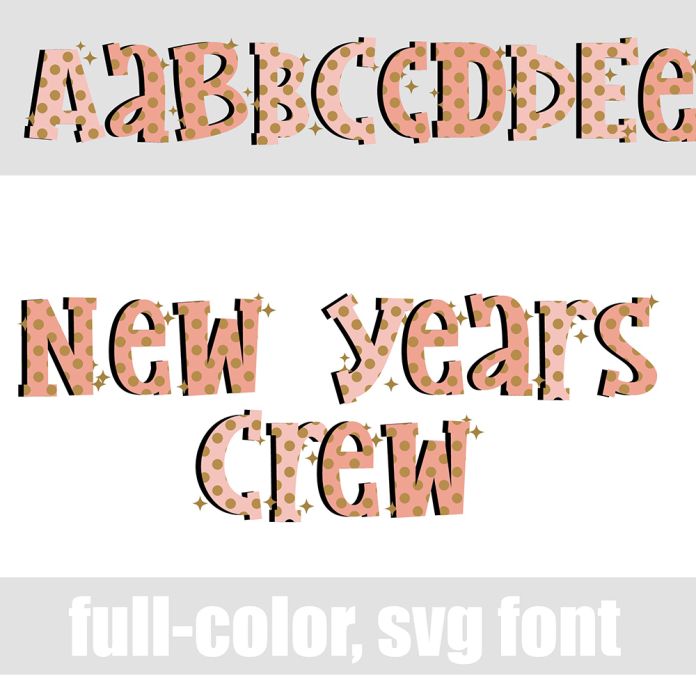
This full-color font features a polka dot font with sparkles throughout. There is an alt case with an additional color of each letter. This font works best for titles, displays, posters and more. Please note color fonts will show as black in non compatible programs. This font type is compatible with Silhouette Studio.